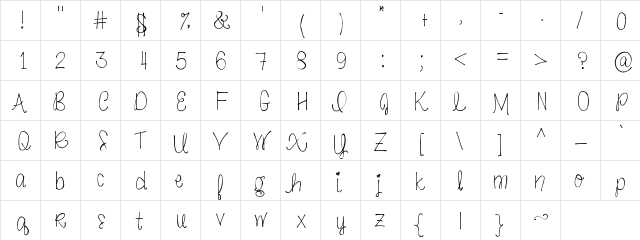
justbeautifulsimplicity Medium
Design Context for justbeautifulsimplicity Typeface
justbeautifulsimplicity is a composed and adaptable typeface that performs quietly and consistently across a wide range of design contexts.
Pro Tip: Pair justbeautifulsimplicity with a font of contrasting weight or personality to build a more expressive typographic hierarchy.